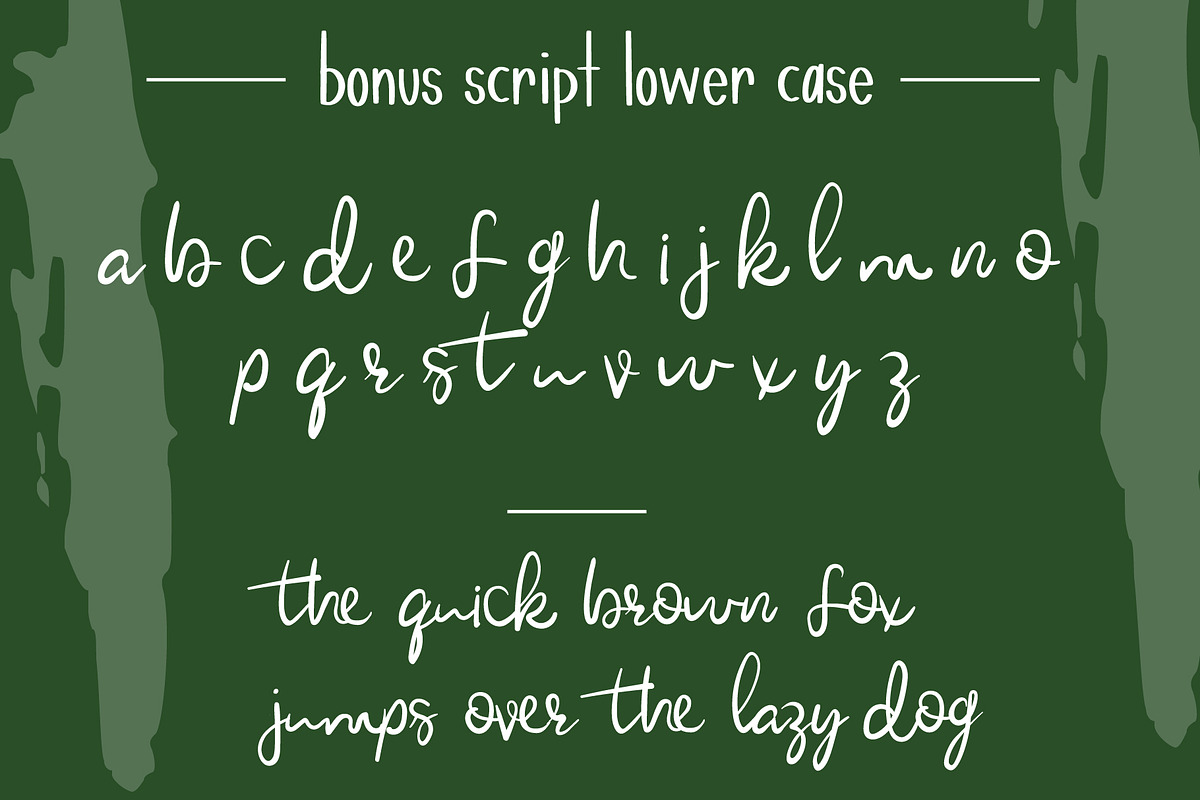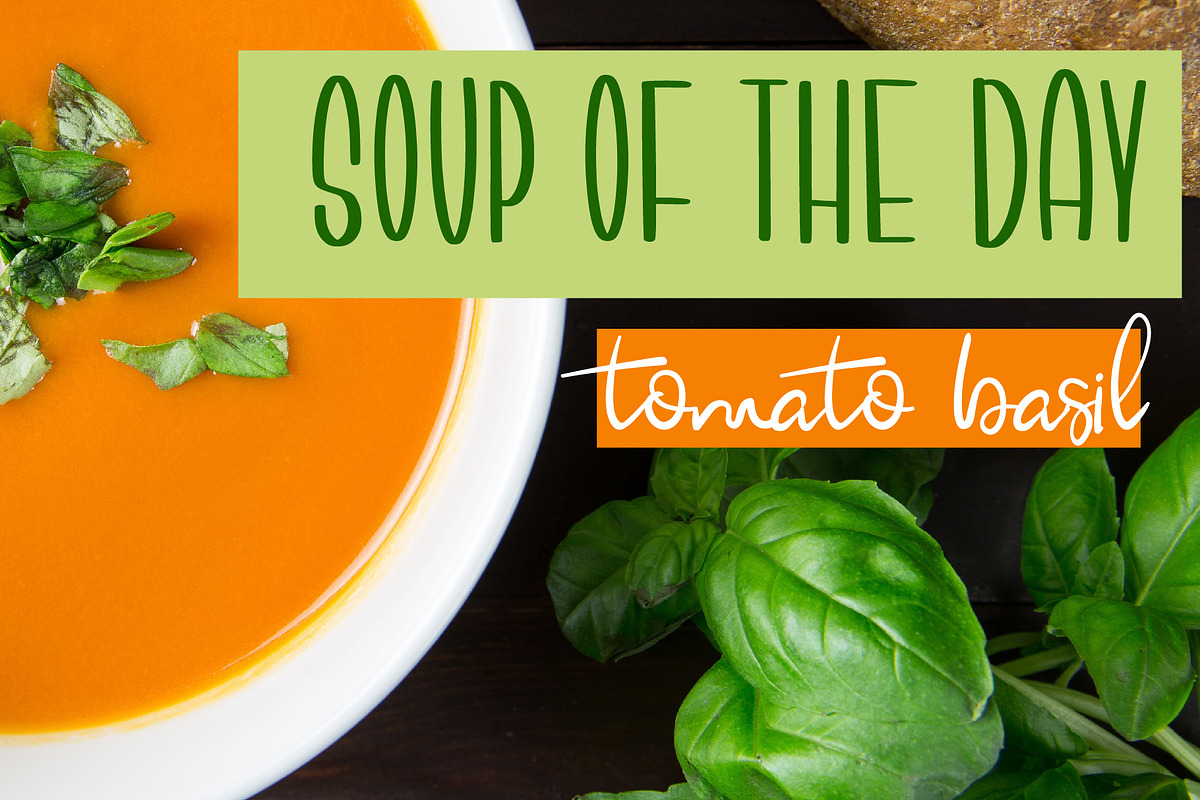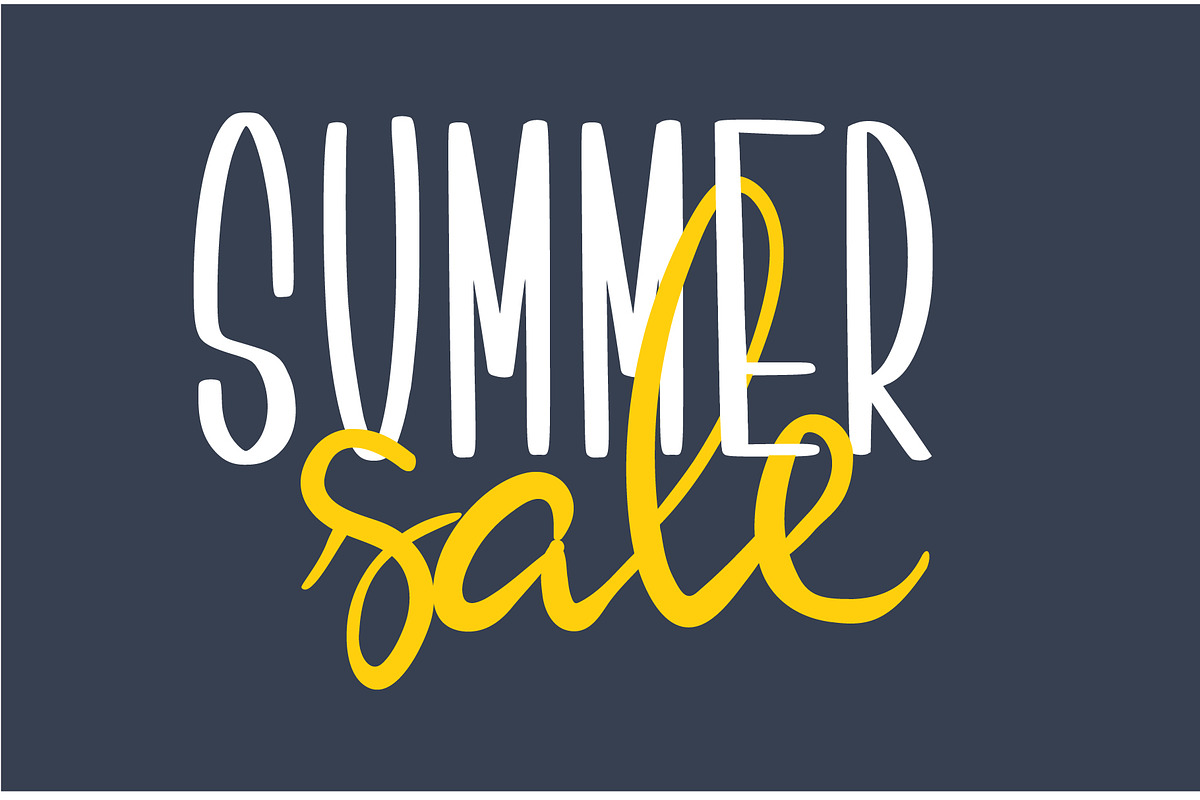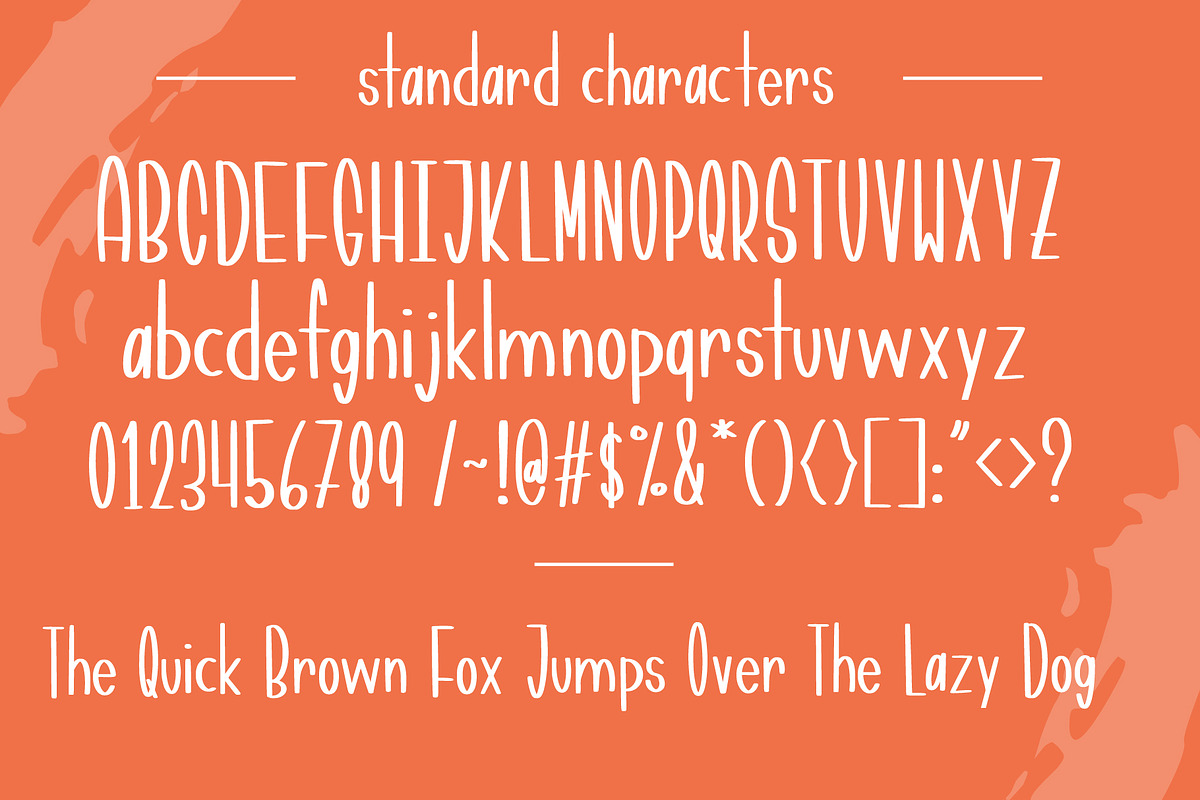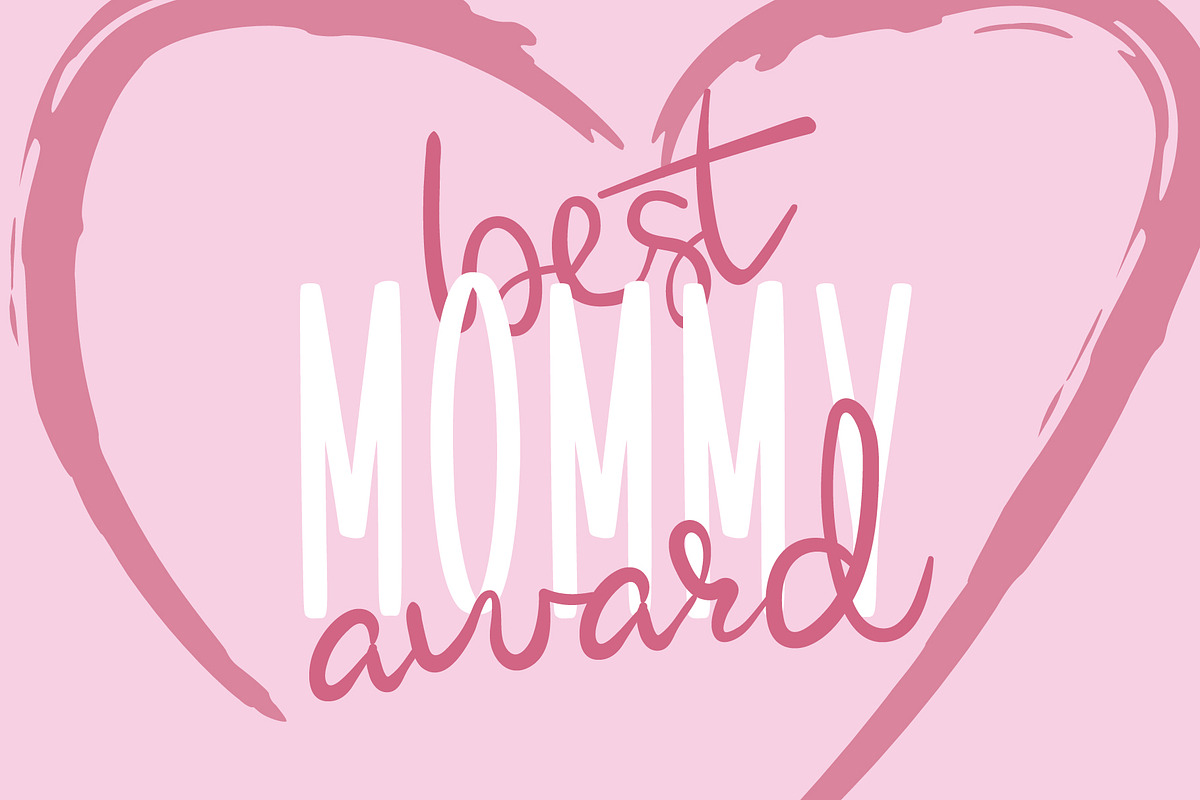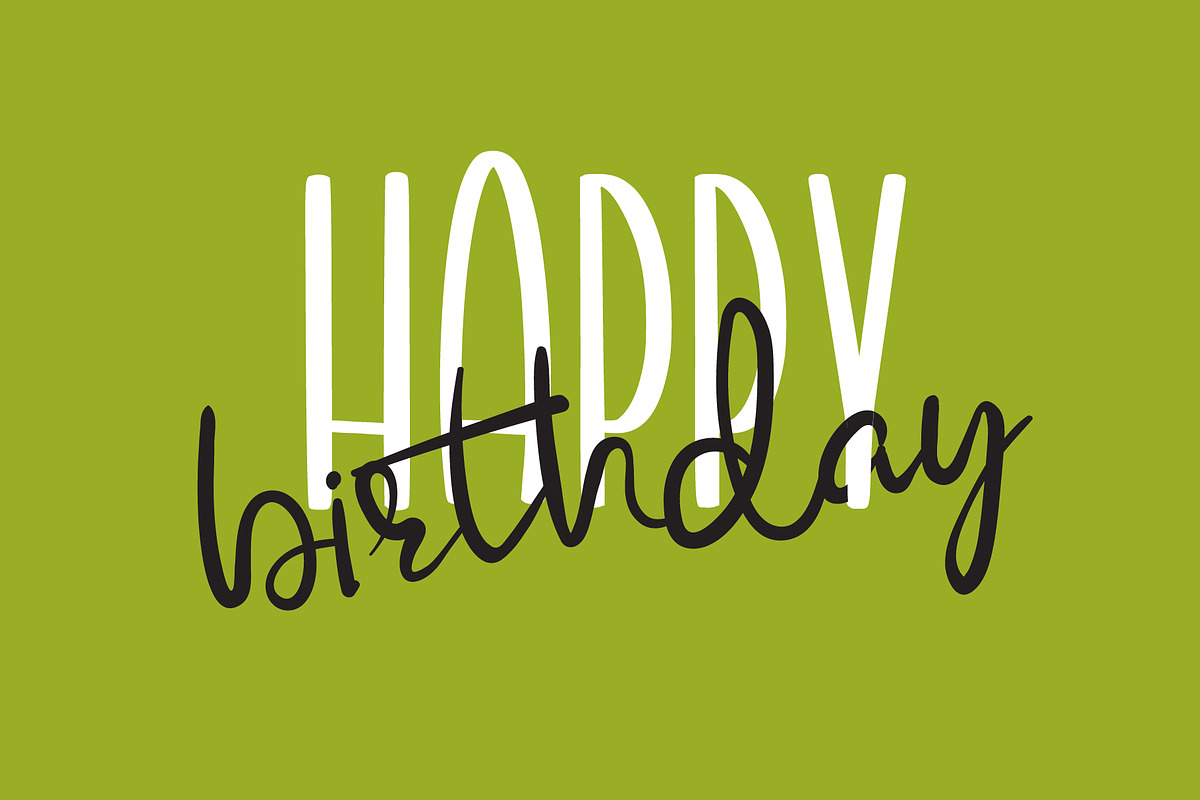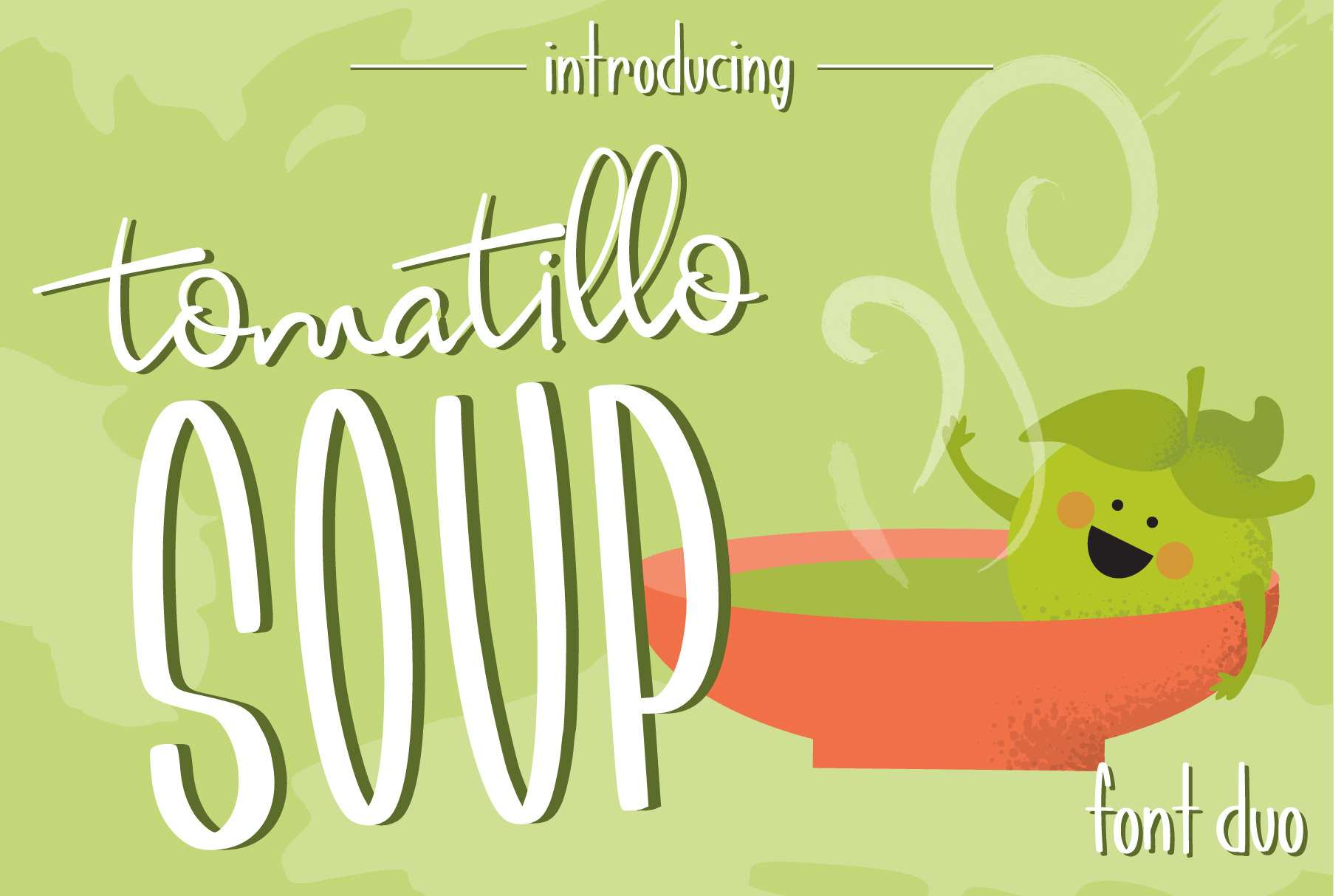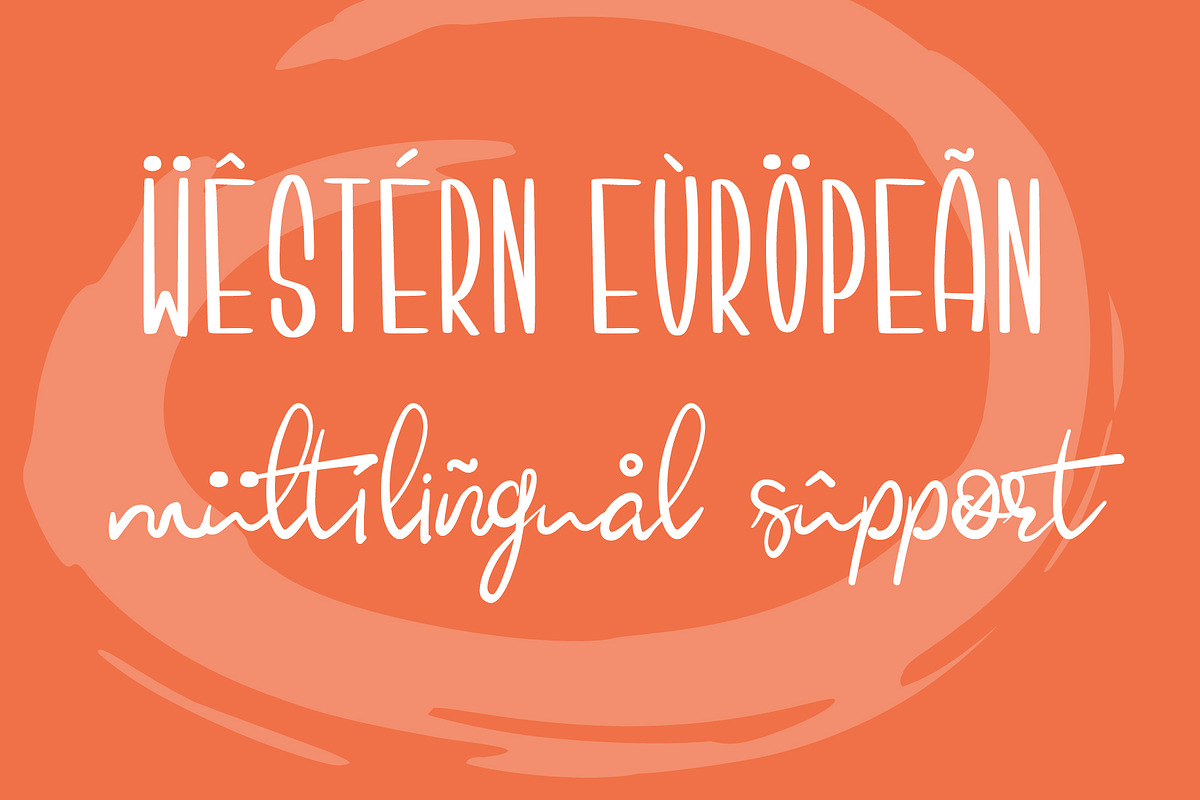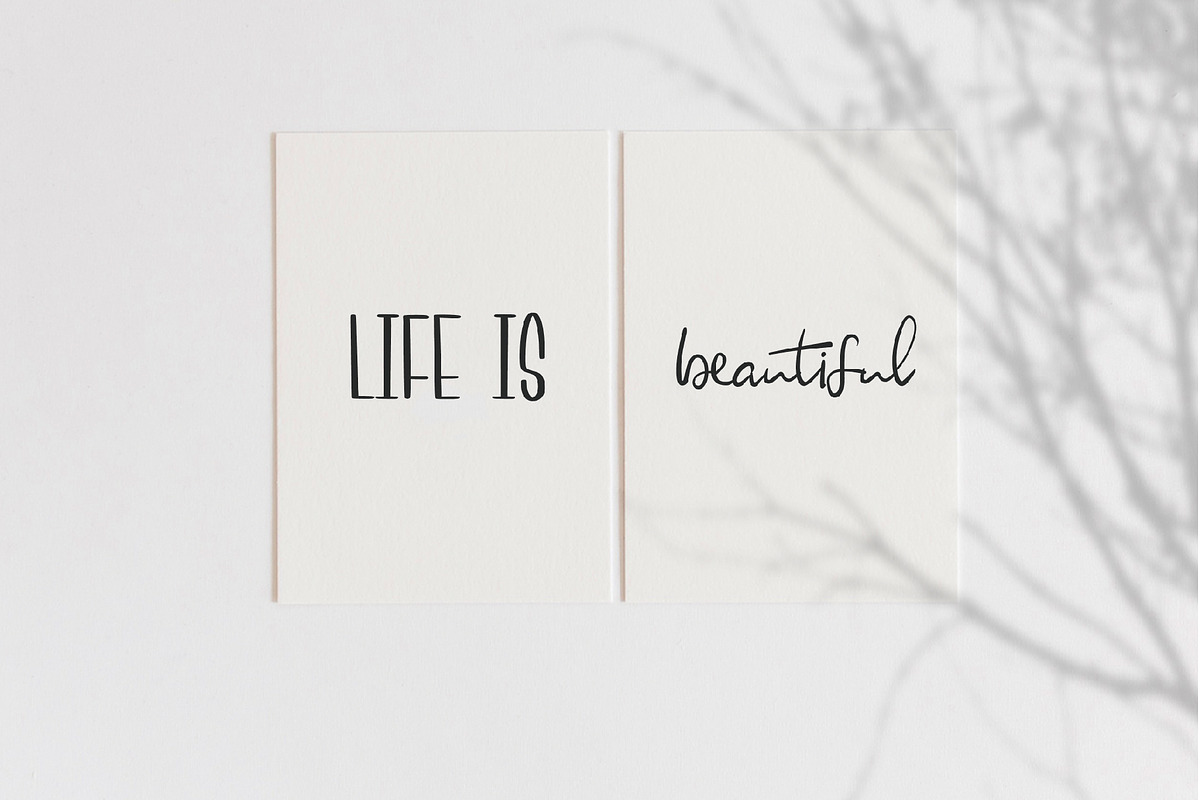
Tomatillo Soup Font Duo
Introducing, Tomatillo Soup. A clean hand drawn font perfect for any craft projects. Bonus alternate lowercase script to add accent. Perfect for quick read messages. This PUA font is perfect for professional designer, social media, or crafters.